2023 Annual TypeTogether Meeting
Our annual meeting was held in Arezzo, Italy, and it was a wonderful time of learning, reconnecting, and planning together!
Welcome to the office party
You might wonder how it is that our small team is able to churn out such high-calibre work year after year, all while keeping a cheerful outlook and inviting others into our “office party”. We’ll give the answer at the end, but it all comes down to serving you with our skills. You are our “why”. It has always been that way, and it always will be.
TypeTogether is a small, decentralised company; we all live in different countries and use our specialities to serve your text, branding, and design needs. So because we are not around each other on a daily basis, we’ve made it a priority to meet in person once a year to hang out, learn new things, set the schedule for the next year, and buckle down to get some great work accomplished together.
This year we met near Arezzo, Italy to discuss our workflow, current projects, plan the next year (or three), learn from colleagues, and just have some fun reconnecting. We were also joined by some wonderful guests (now friends) as they led workshops for the team: experimentalist Danielle Duncan (Evans), specialist in handwriting styles Petra Dočekalová, and the duke of diacritics Radek Sidun. Here’s what our week looked like.
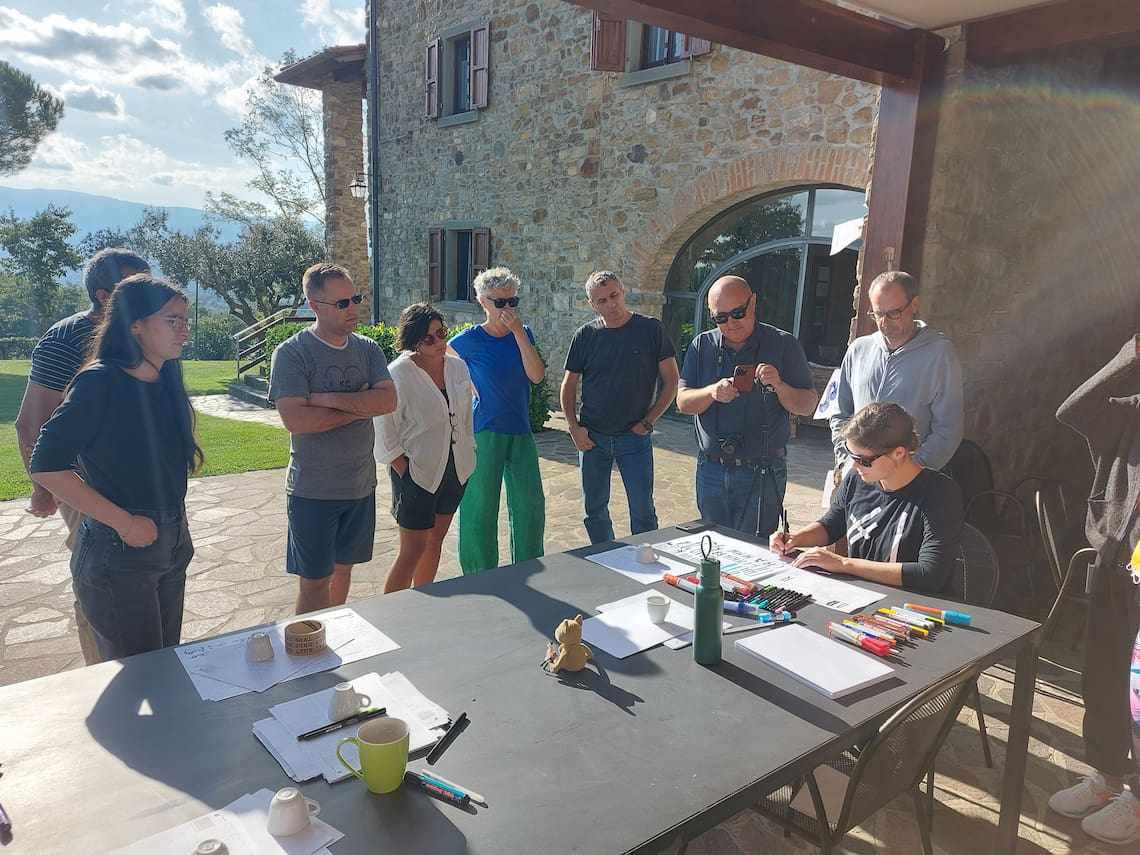
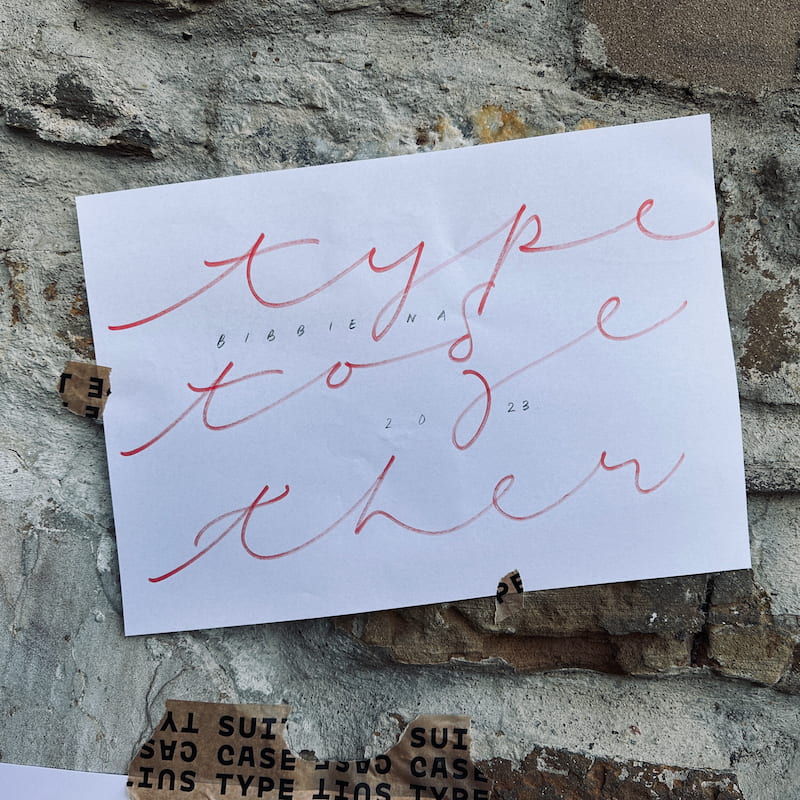
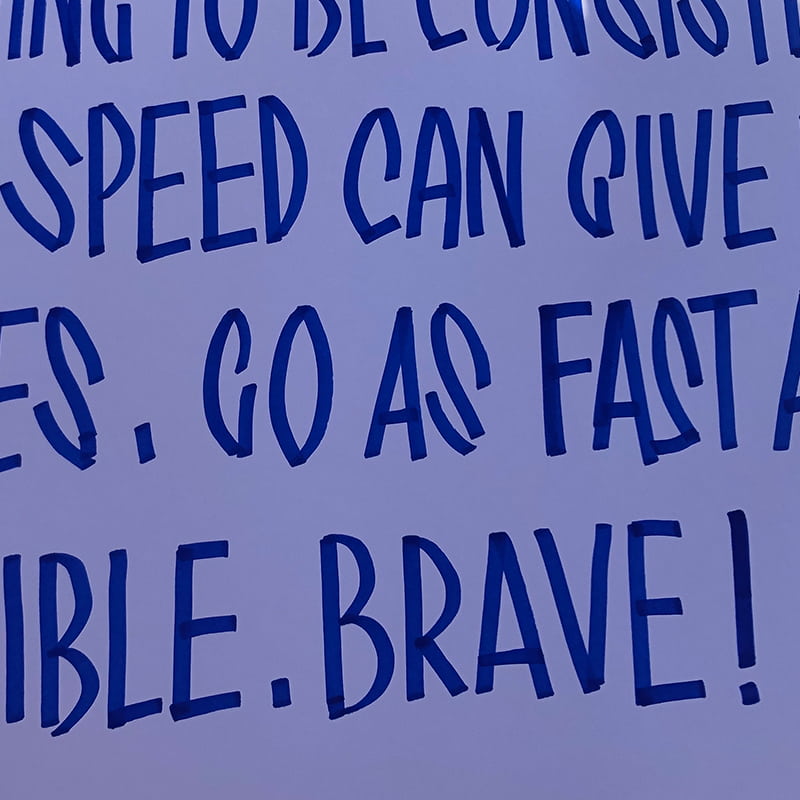
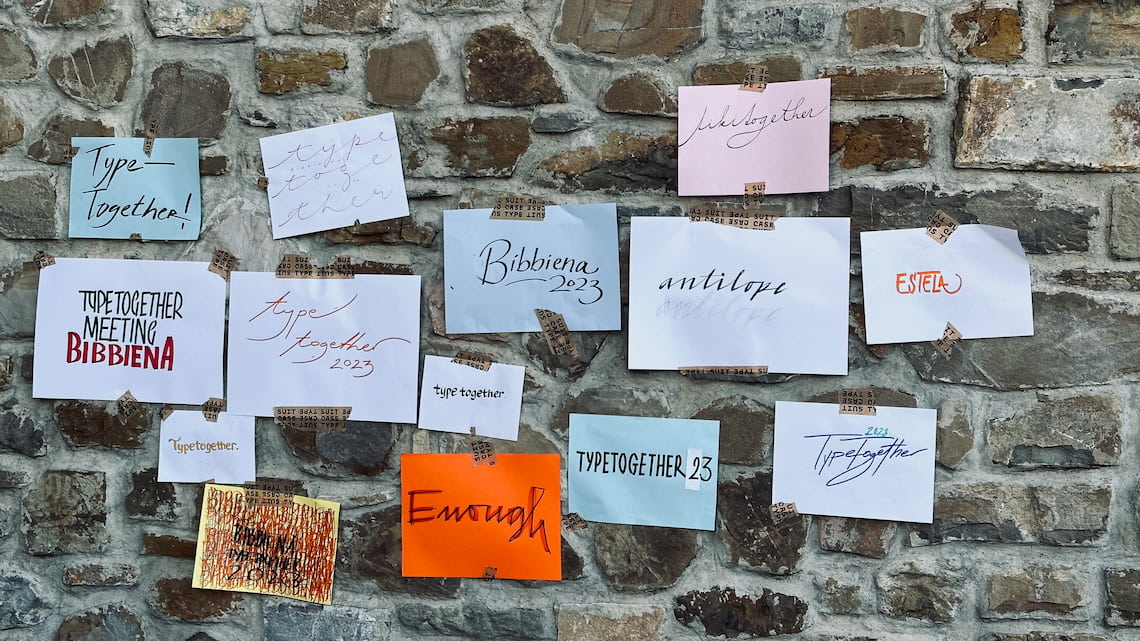
Day 1, Sunday: arrival
Almost everyone arrived today by plane, train, and taxi. Hugs and greetings were spread all around. Rooms were chosen, we began scoping out the best work areas, and had a great meal. This was the first time meeting a few new faces in person: Gerard Unger Scholarship winner Patrycja Walczak and type designer Yorlmar Campos, and they fit in with the team perfectly.
Day 2, Monday: lettering with Petra
We got right to work! After coffee! And breakfast! So... almost right to work! The communications team presented their progress on the Ploquine release graphics, and we all ooooo-ed and aaaaah-ed at it.
Petra Dočekalová led the entire team in a fantastic learn-then-do workshop on hand lettering and finding one’s own style. We began with extended times of writing at our own comfort level, then she introduced us to several styles and several pen and marker shapes to broaden our palette. Finally, we chose the best match of tool to our ability and produced a large poster in our selected style. Petra is the consummate encourager and is always joyful in her presentations, so the afternoon flew by too quickly and we all had a lot of fun learning.
Day 3, Tuesday: diacritics with Radek
The morning was stacked with individual and group work, followed by Radek Sidun’s presentation on diacritics in the afternoon. Radek brings years of experience designing accented characters to his clients, of which TypeTogether is one. We are fortunate to be able to depend on him for his opinionated insights, dry sense of humour, and depth of knowledge.
The evening concluded with a type[together] quiz, complete with prizes of handmade character pillows made by Elena’s mother.
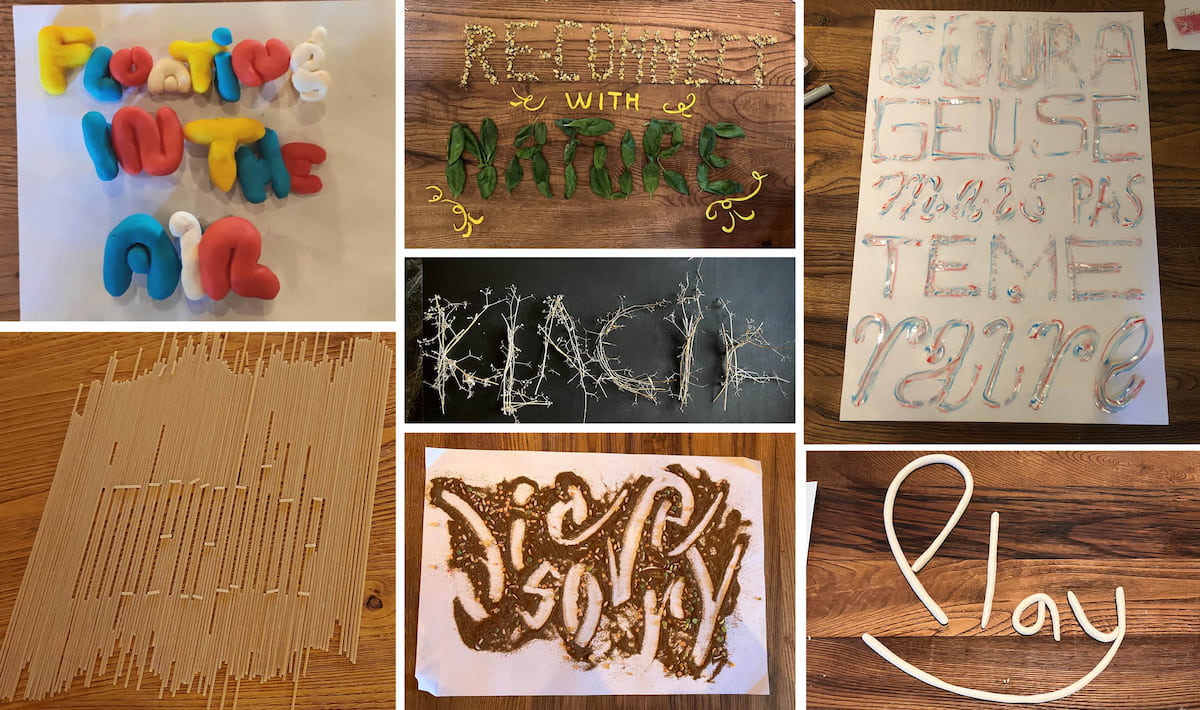
Day 4, Wednesday: experiments with Danielle
After coffees and some food, we continued with individual and group work. Danielle Duncan (Evans) then led us in a tangible lettering workshop in the afternoon. We heard stories of experimentation, perseverance, and flavourful bliss, then were invited to create our own interpretations in an edible medium. Afterward, we imported them into augmented reality to make them part of our environment. It was good to get to know Danielle in a more social environment and she felt like part of our fun-loving team.
Grandfather’s clock
That evening, Patrycja gave a presentation on the history and progress of her scholarship-winning typeface Poltik, including passing around the old alarm clock found in her grandfather’s desk drawer that served as its inspiration. She also announced that she is creating a completely new text type family apart from the display, and, even though it’s early in the development, it is showing a lot of promise.
Day 5, Thursday: hiking & karaoke
The Czech crew left this morning and the team took the day off. Since our work and learning schedule is so intense, we always take a midweek break to do an activity for half the day. Last year it was a museum and beach excursion or a country bike ride. This year it was painting the toenails of local homeless dogs. (They deserve to feel pretty, too!) Just because Rover didn’t appreciate it, doesn’t mean we’re giving up. And I’m sure bite marks that bad don’t leave a permanent scar, right?!
Kidding, of course, but I had to see who was still reading. On the leisure part, ten teammates took a long hike down into town, then had lunch in a proper old-school Italian restaurant. The others took individual hikes, worked on projects, swam in the pool, or relaxed. Much hiking and swimming happened throughout the week, and we capped off the night with a rousing couple hours of karaoke, spontaneously initiated by Emma Marichal.
Day 6, Friday: wrapping up
Tom left for home, Danielle left to visit her ancestral Italian town, and the rest of us were enthralled by Elena’s masterclass on file and folder organisation. (Truly, some of her best and most impactful work!)
The afternoon was reserved for super-secret presentations and announcements, which will be unveiled during 2024. And if you’re not following us on social media, you’re missing some great stuff. Click here for FB, here for IG, here for Twitter, and treat yourself by signing up for our email with special discounts and helpful info.
We continued with work projects during any unscheduled time, and Pooja cooked a veggie Indian dinner that was an absolute hit to top off the week.
Day 7, Saturday: see-you-soons
We all said goodbye, reveling in the fun we had and the progress made, knowing we will see each other during our weekly video chats.
In closing: welcome to the office party
We started by asking how it is that we continue to create great typefaces that serve your needs. The answer is because we really enjoy each other, challenge each other to do better, love having fun, and are intent at improving what we do. And what we do is try to solve your modern problems though both our love for and skills in typography.
Together, our goal is to make your designs and your design choices easier and higher quality with greater aesthetic value. Yes, we exist for you. We exist to figure out ways of serving you better, and do this thing called type together.